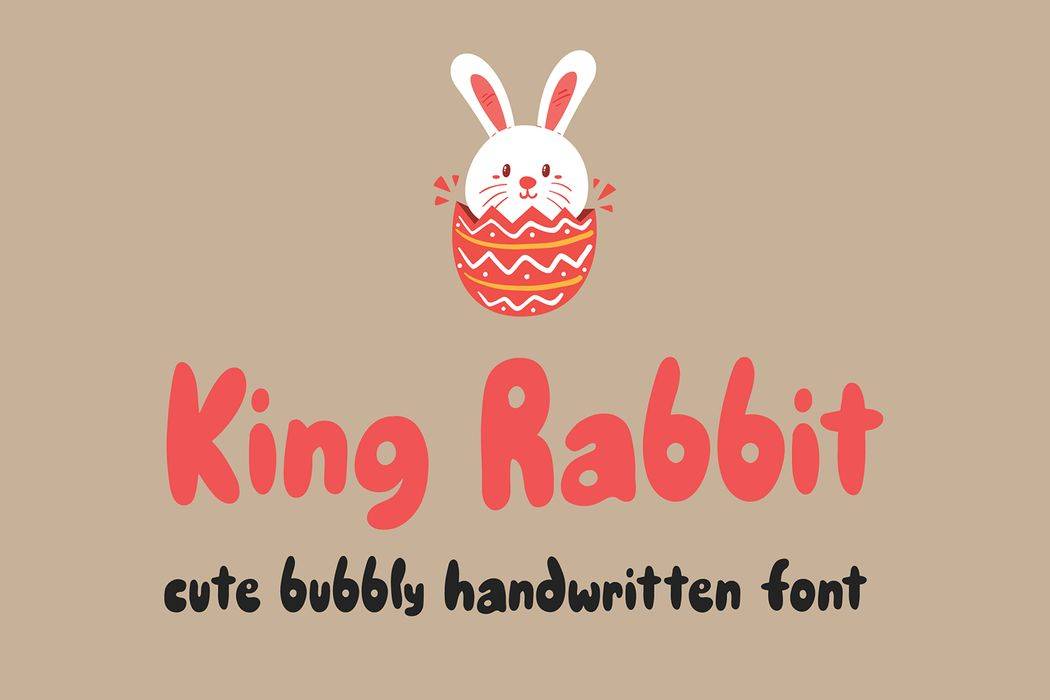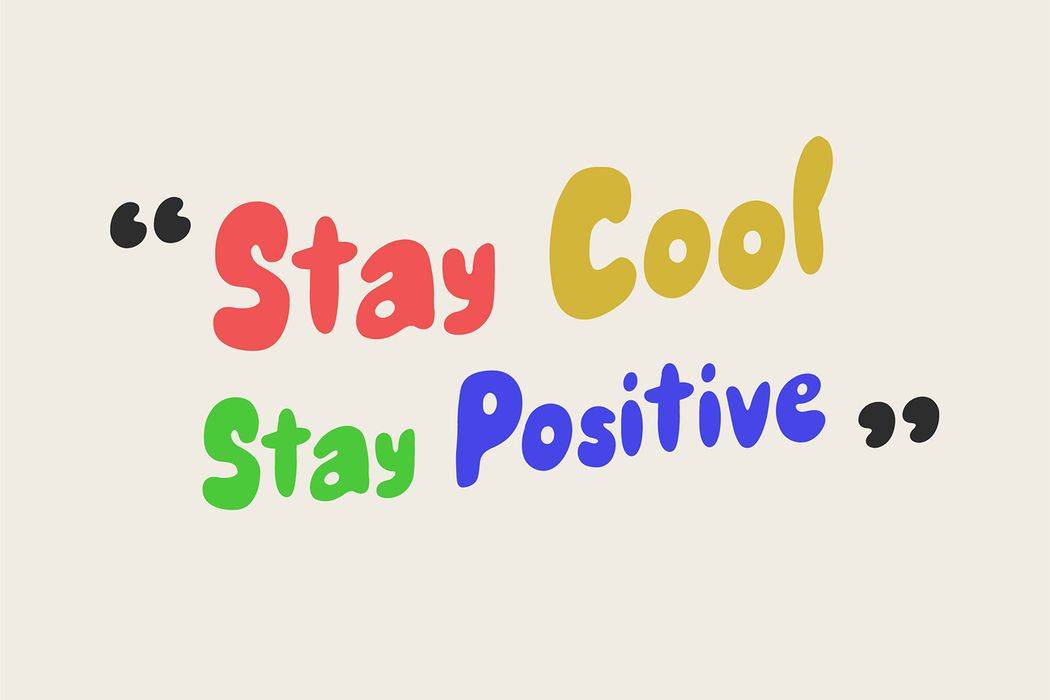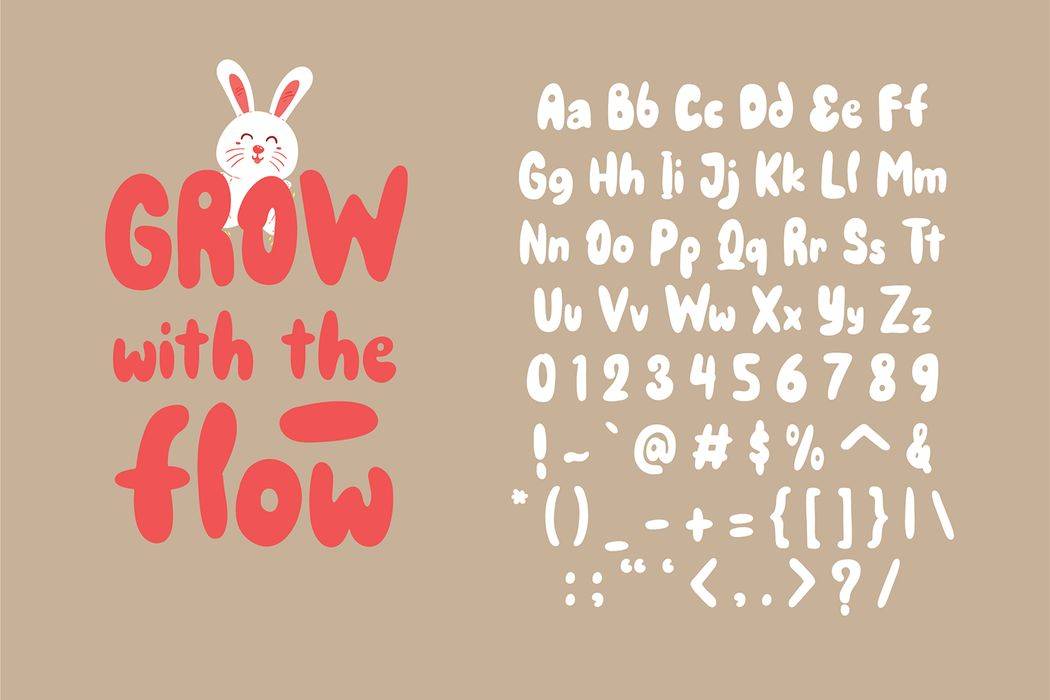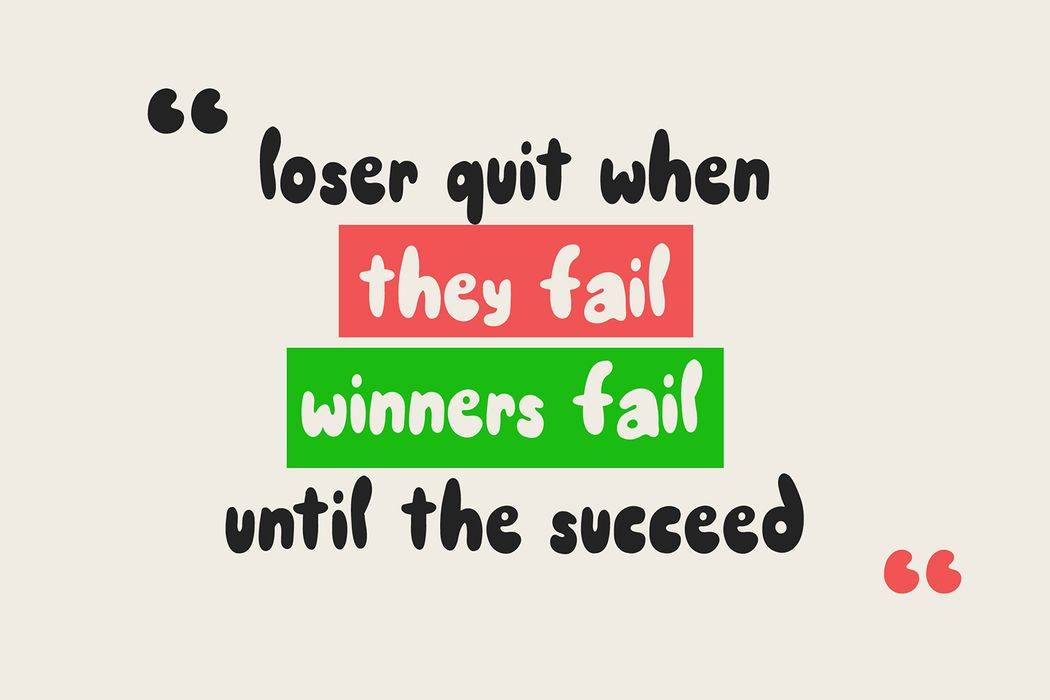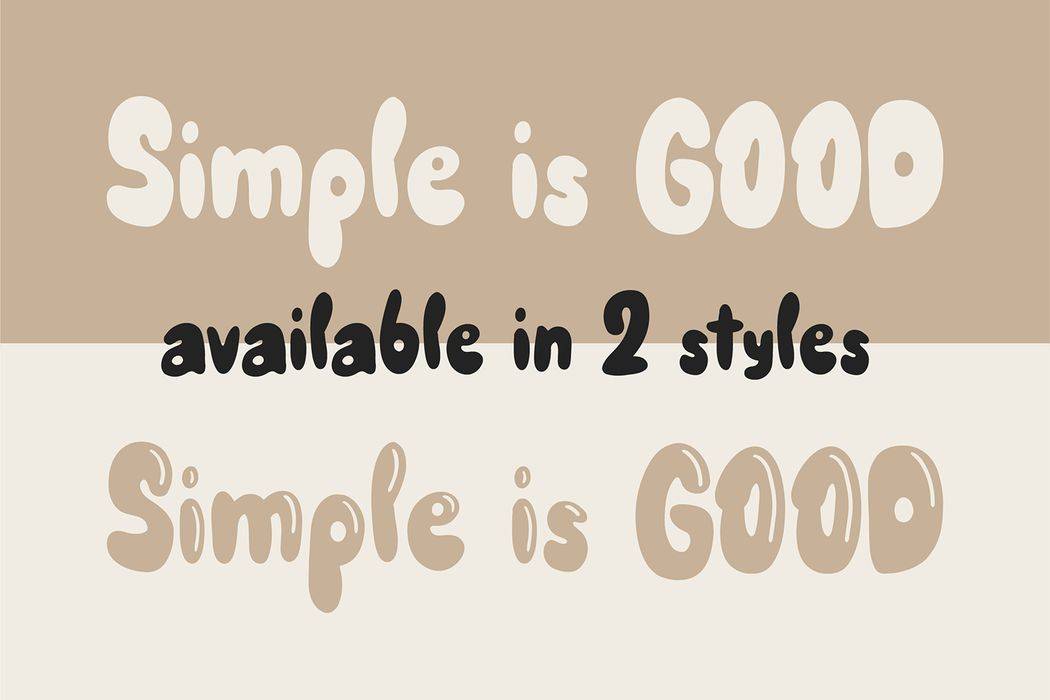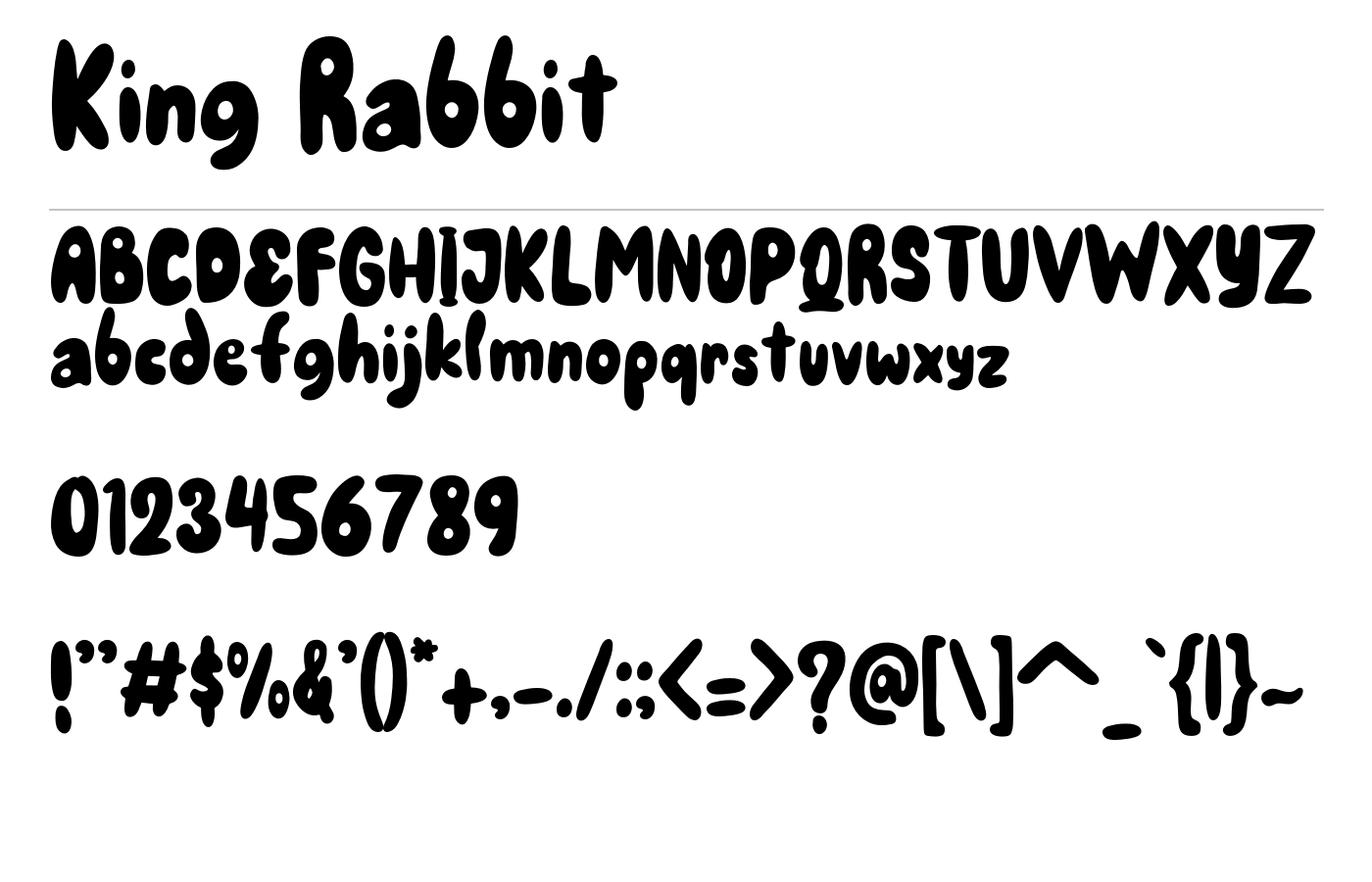
King Rabbit is a playful and bold handwritten sans serif font with rounded, bubbly letterforms that exude a fun and friendly vibe. Its thick strokes and slightly irregular shapes make it ideal for casual and creative uses, especially in children’s branding, posters, and informal editorial projects where a lively and approachable tone is desired. This font works well for headlines and display purposes, adding a whimsical and cheerful personality to any design.
King Rabbit Font
About King Rabbit Font
| Font family | King Rabbit Font |
| Designer | Dida Ahluddin |